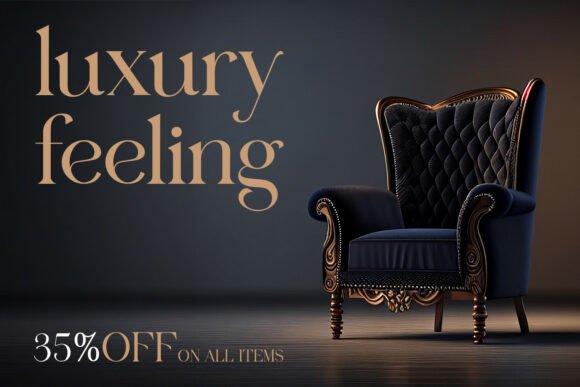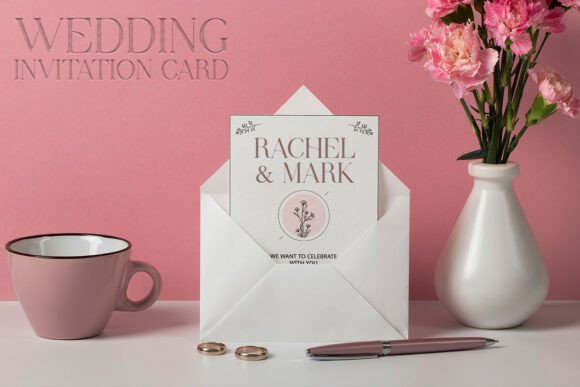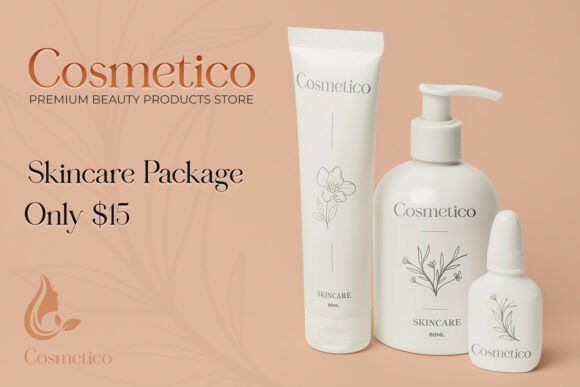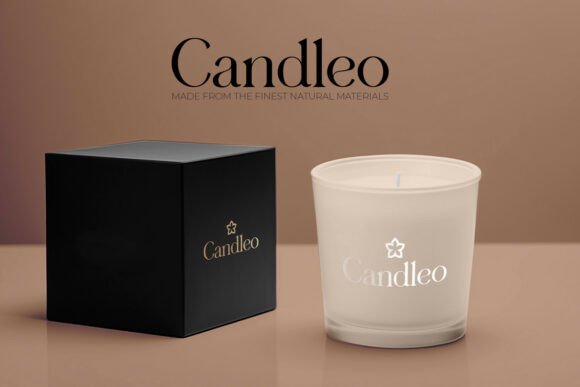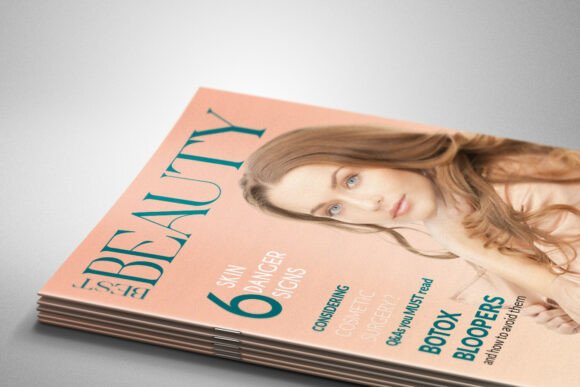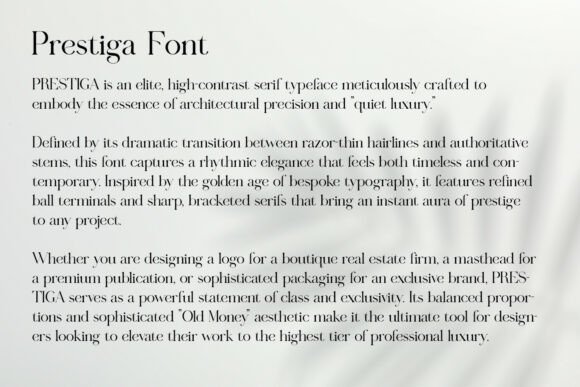
Introduction to Prestiga Font Font
Fonts play a crucial role in design, and the Prestiga Font font is a typeface that brings both character and versatility to any project. Whether you’re working on a branding project, a website, or a print design, the Prestiga Font font offers a unique style that can elevate your work.
Prestiga is an elite, high-contrast serif typeface meticulously crafted to embody the essence of architectural precision and “quiet luxury.
” Defined by its dramatic transition between razor-thin hairlines and authoritative stems, this font captures a rhythmic elegance that feels both timeless and contemporary Inspired by the golden age of bespoke typography, Prestiga features refined ball terminals and sharp, bracketed serifs that bring an instant aura of prestige to any project.
Key Features of Prestiga Font Font
Why Choose Prestiga Font Font?
The Prestiga Font font is more than just a typeface – it’s a design tool that helps you communicate your message with style and clarity. Its unique character set and versatile design make it suitable for a wide range of applications, from elegant invitations to bold headlines.
With its carefully crafted letterforms and balanced proportions, the Prestiga Font font ensures readability and visual appeal across all mediums.
What makes Prestiga Font font special?
The Prestiga Font font stands out with its unique design, exceptional readability, and versatility across various design applications.